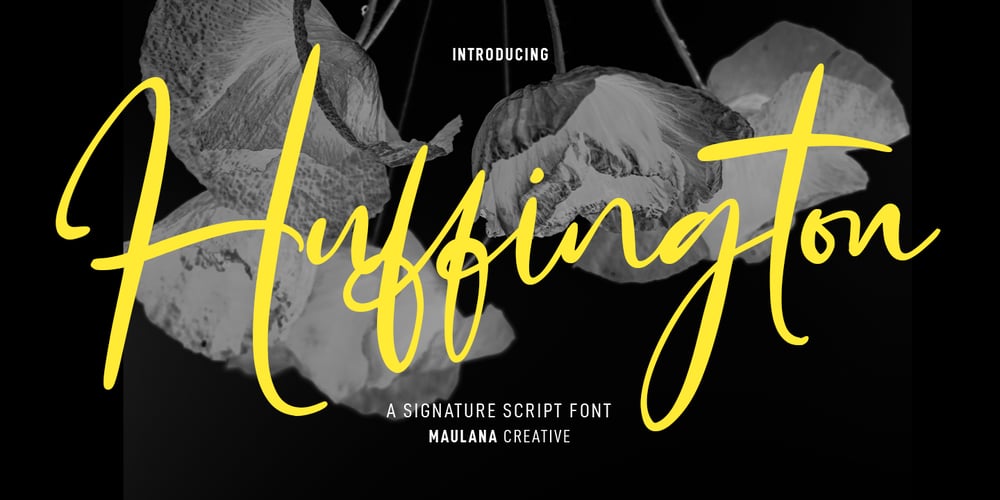
Huffington Font Family was designed by Gilang Maulana and published by Maulana Creative. Huffington contains 1 styles and family package options. Huffington is a fancy casual signature script font. With high contrast ink-is stroke, fun character with a bit of ligatures and alternates. To give you an extra creative work. Huffington font support multilingual more than 100+ language. This font is good for logo design, Social media, Movie Titles, Books Titles, a short text even a long text letter and good for your secondary text font with sans or serif. Make a stunning work with Huffington font. Cheers, Maulana Creative